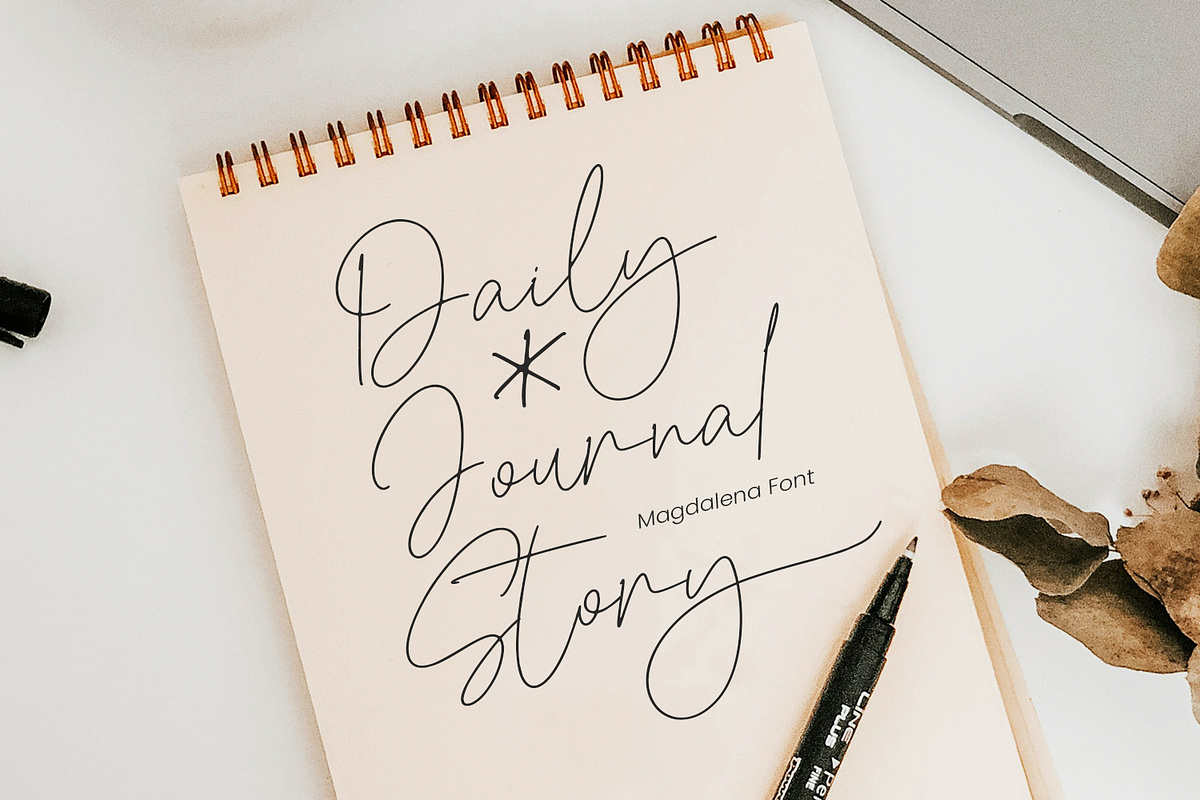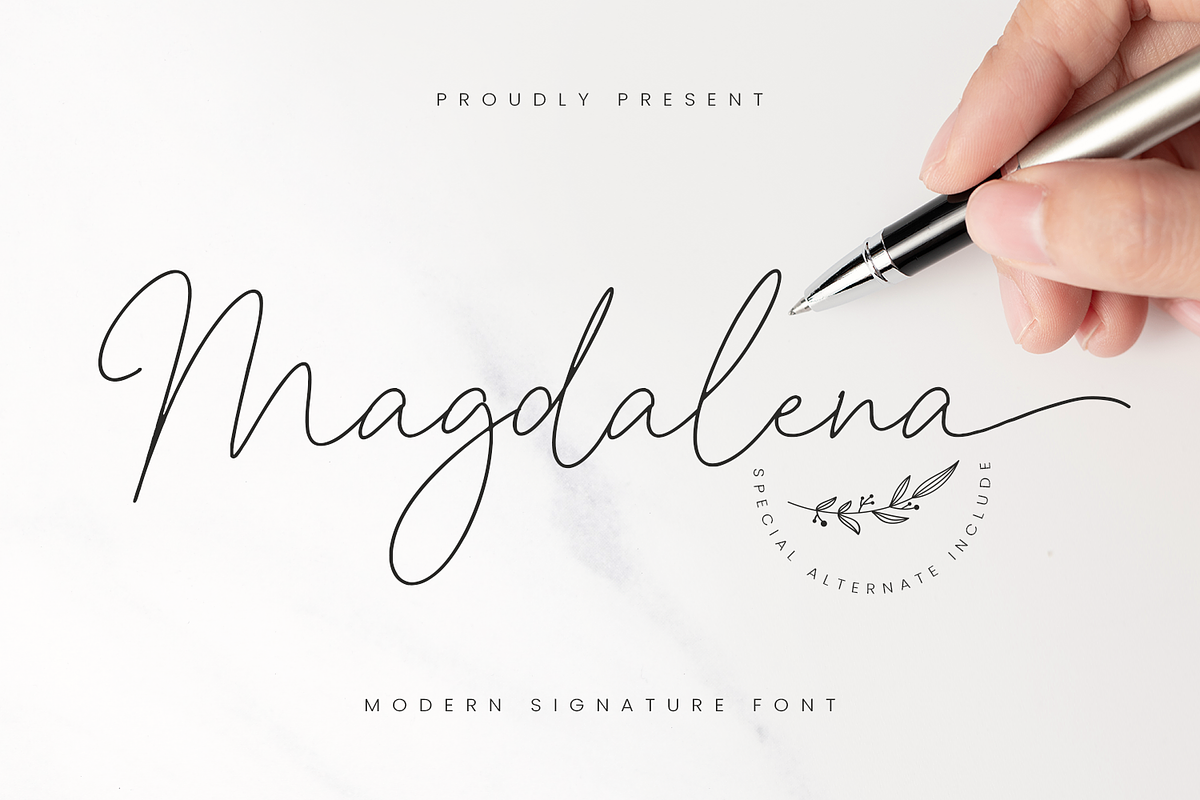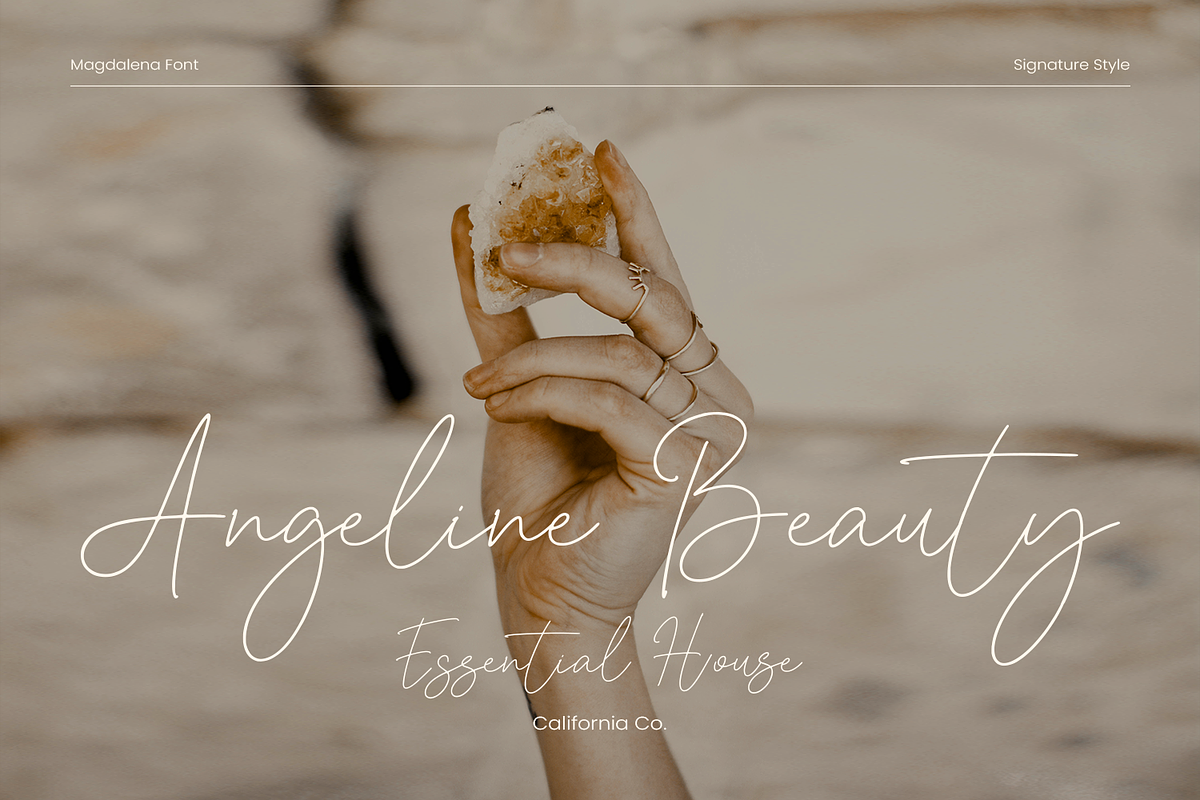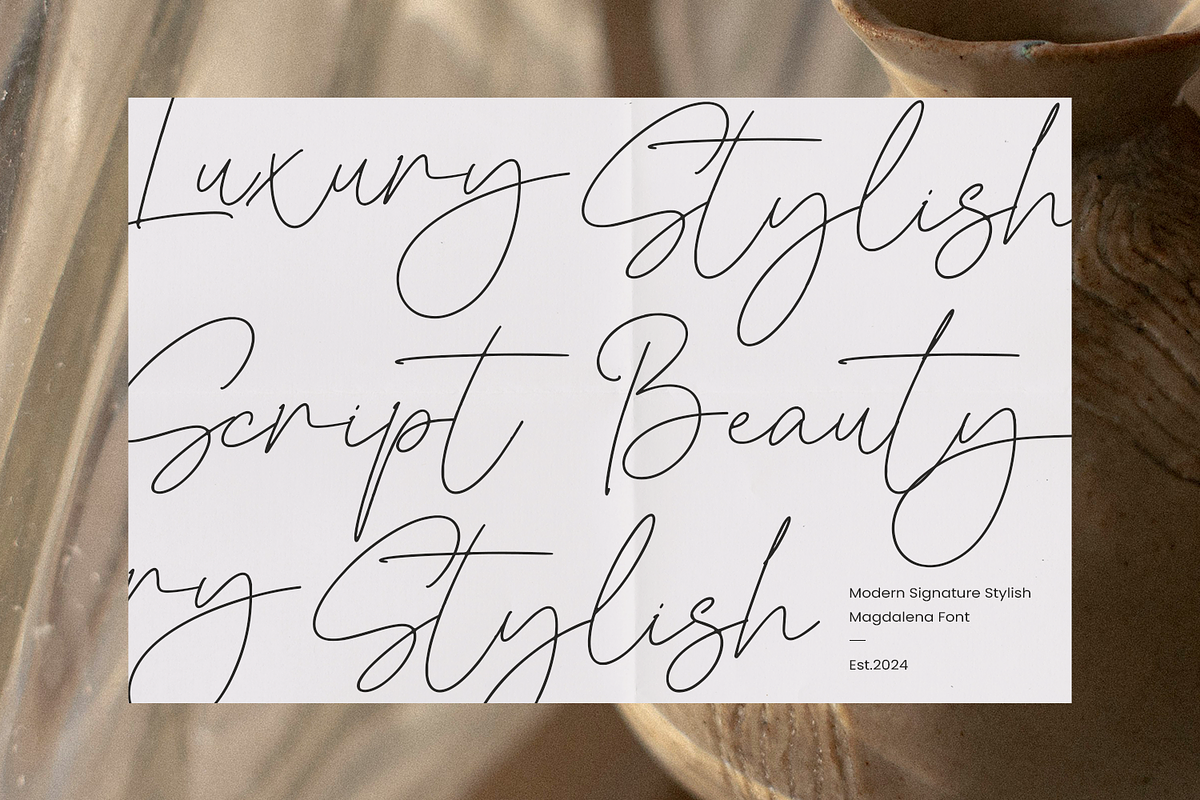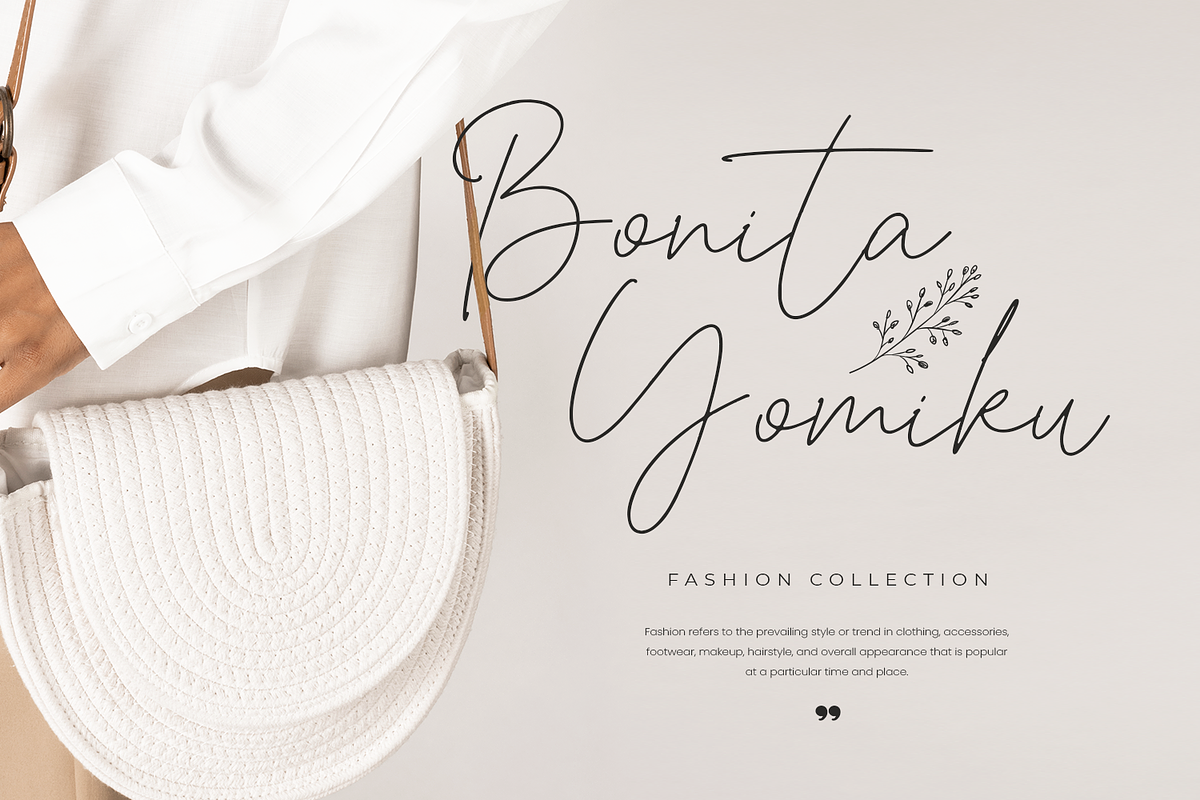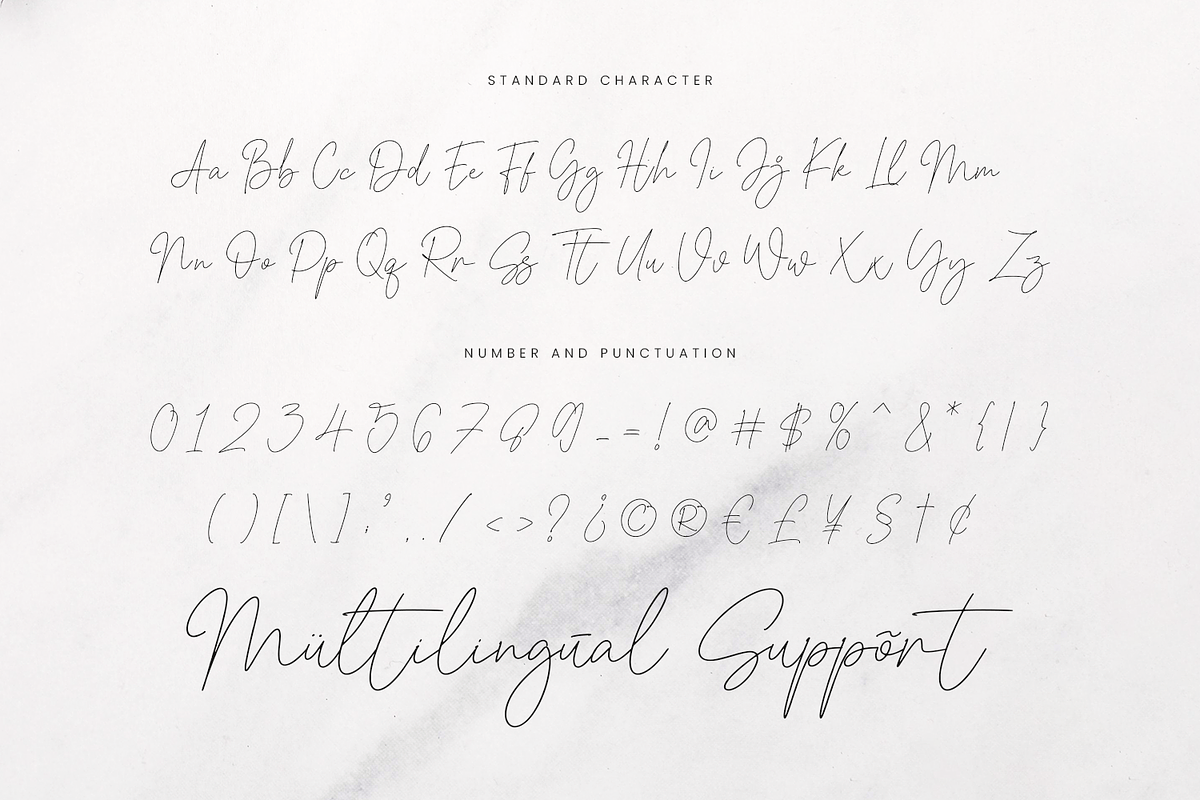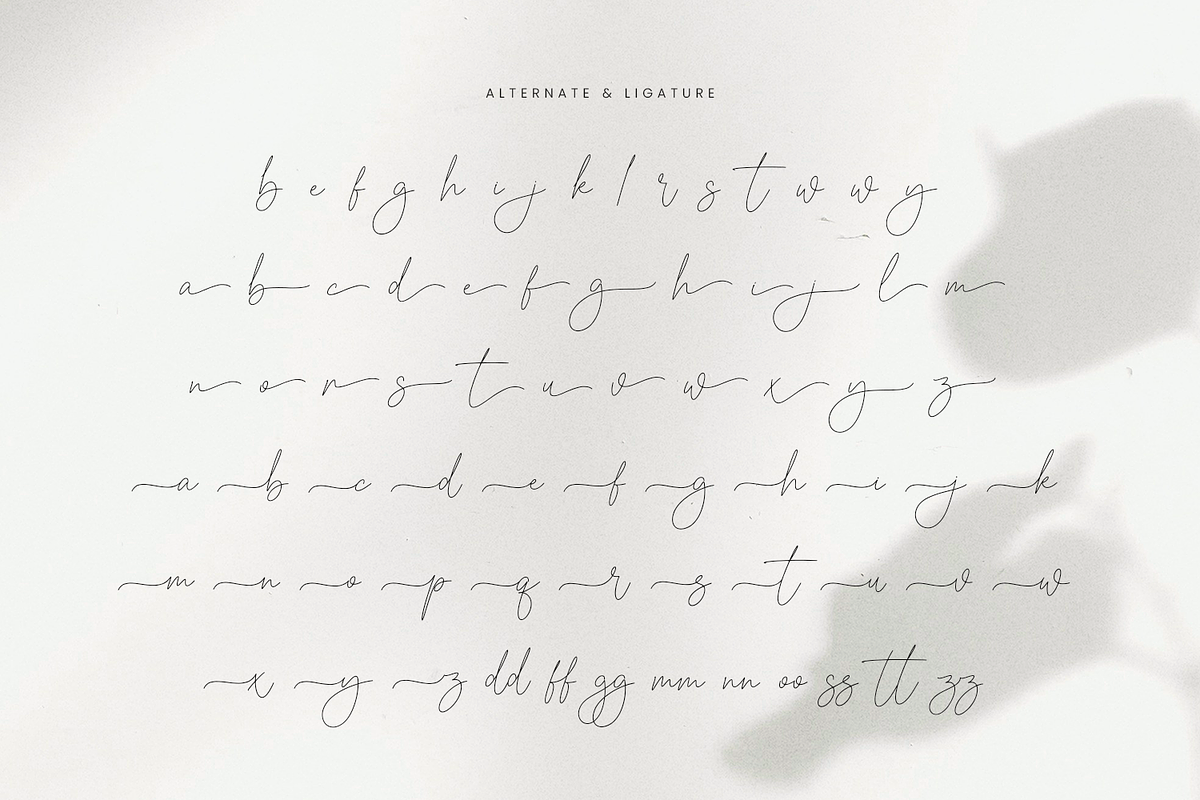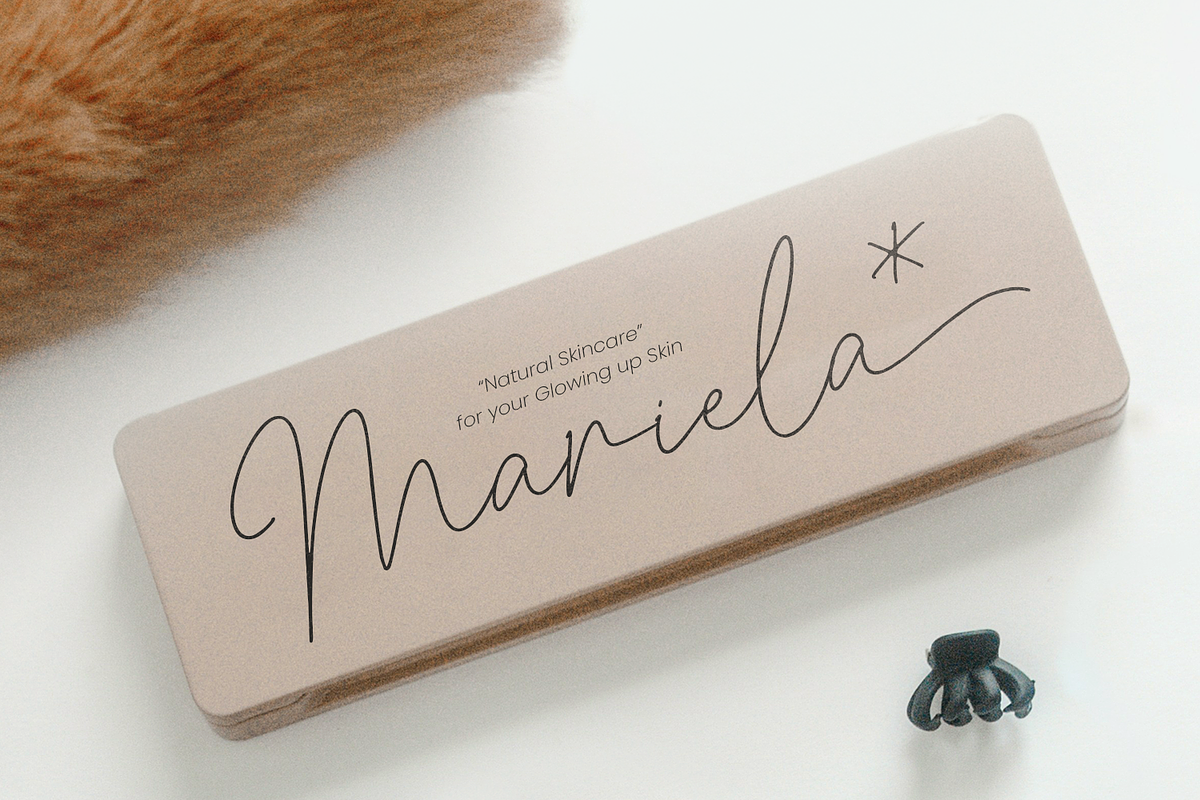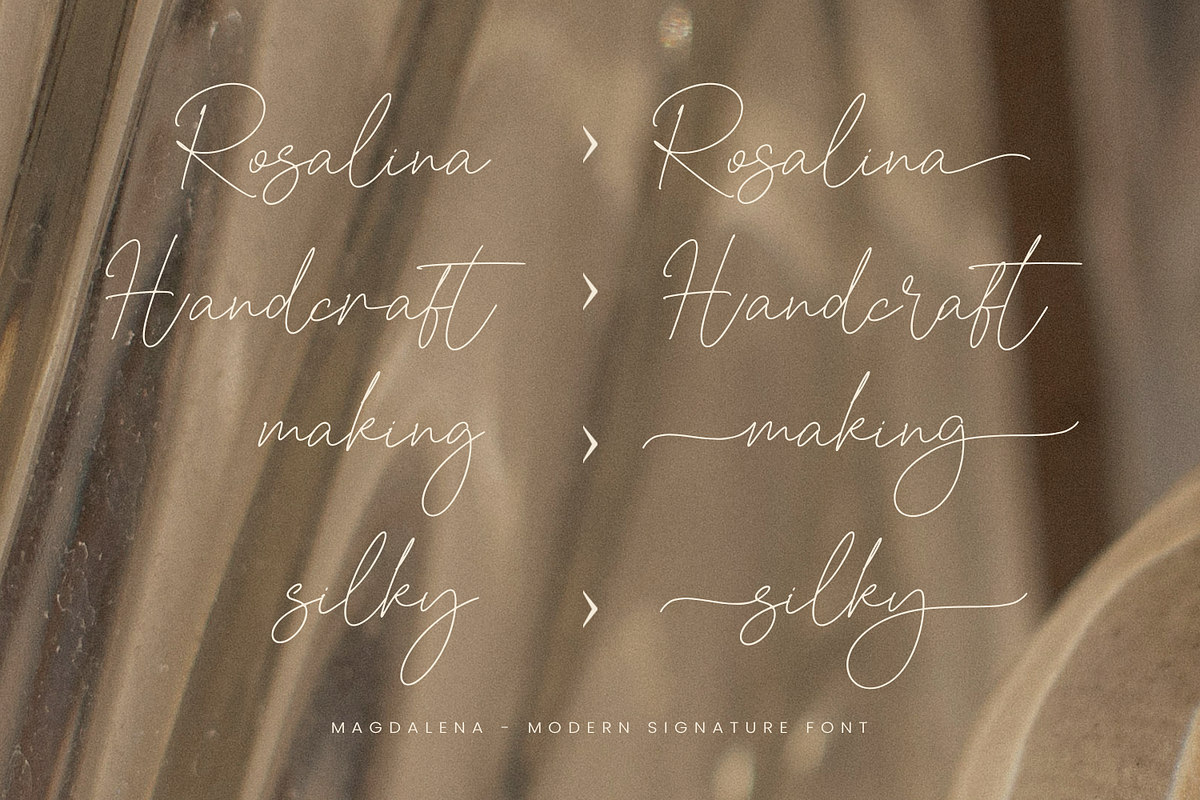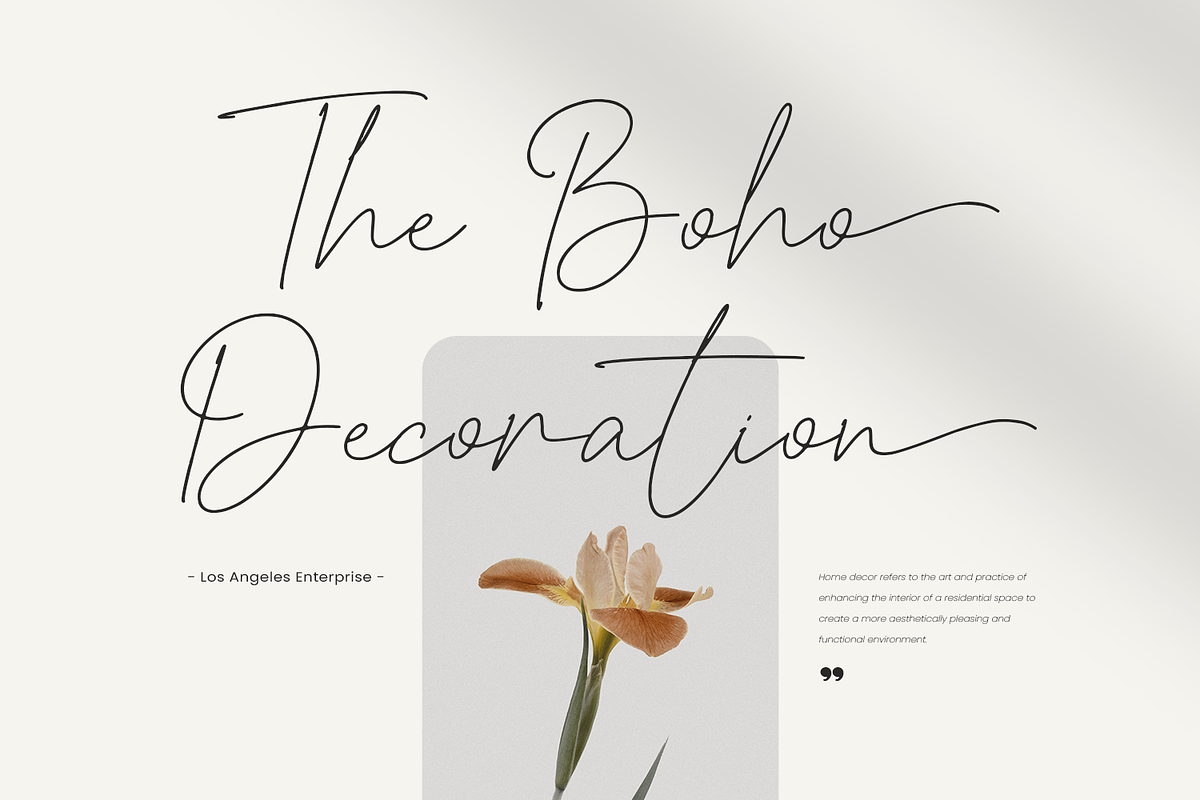
Magdalena Signature
Introducing Magdalena Signature, a stylish and sophisticated signature font that brings a touch of elegance to every project. With its smooth, flowing strokes and refined script style, this font is perfect for weddings, invitations, birthdays, and other special occasions. Magdalena's effortless charm makes it ideal for adding a personal, handwritten feel to your designs, while its signature-style curves give it a luxurious and modern vibe.
Magdalena is a versatile choice for various creative themes, from spring and summer designs to Thanksgiving and Christmas projects. Its graceful, fluid lines make it a standout option for crafting beautiful greeting cards, elegant logos, and eye-catching branding. Each character features unique beginning and ending swashes, allowing you to add a touch of flair to every word and create stunning compositions effortlessly.
This font is PUA encoded, ensuring easy access to alternate characters and swashes, giving you the freedom to experiment with different styles and achieve your desired look. Whether you’re working on Cricut crafts, embroidery, SVG designs, or heartfelt keepsakes, Magdalena lends a sense of sophistication and warmth to all your creations.
- Standard & Multilingual glyphs.
- 100 + Alternate glyphs.
- Unique Ligature.
- Fonts include multilingual support for; Afrikaans, Danish, Dutch, French, German, Indonesian, Irish, Italian, Norwegian, Portuguese, Scottish, Spanish, Swedish, Swiss etc.